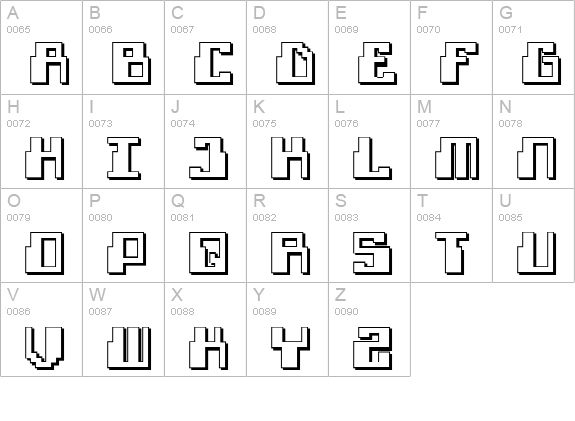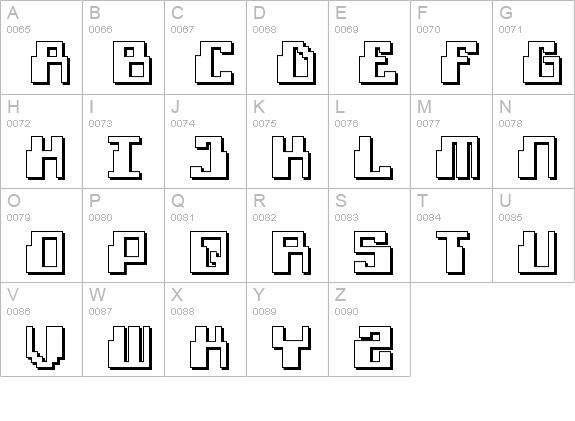
Futurism Font Details
Futurism font is a sleek and modern typeface that exudes a sense of innovation and sophistication. With its clean lines and futuristic design, this font is perfect for projects that require a cutting-edge look. Whether you are designing a website, poster, or logo, Futurism font will make your text stand out and grab attention. The best part is that Futurism font is available for free download at FontsMarket.com. You can easily access this stylish font and use it in your projects without any cost. Embrace the future of design with Futurism font and elevate your creations to the next level.